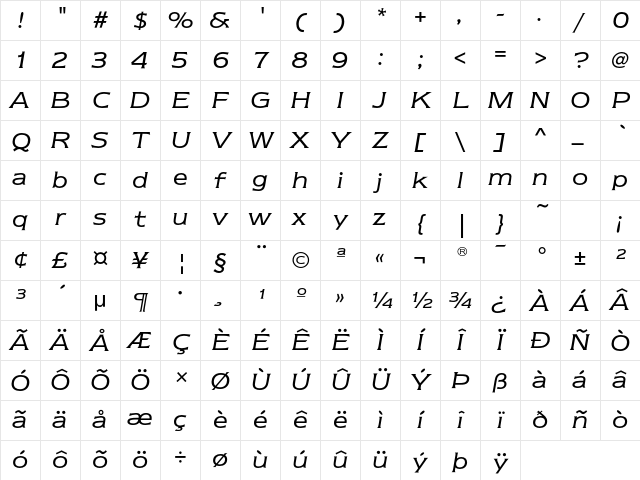
NewtextEF BookItalic
Style: BookItalic
NewtextEF Family
NewtextEF BookItalic
Design Context for NewtextEF
NewtextEF is a composed and adaptable typeface that performs quietly and consistently across a wide range of design contexts. The slanted form adds forward momentum and visual energy.
Pro Tip: Use NewtextEF for emphasis, pull quotes, and subheadings where its slanted energy can add rhythm to the layout.